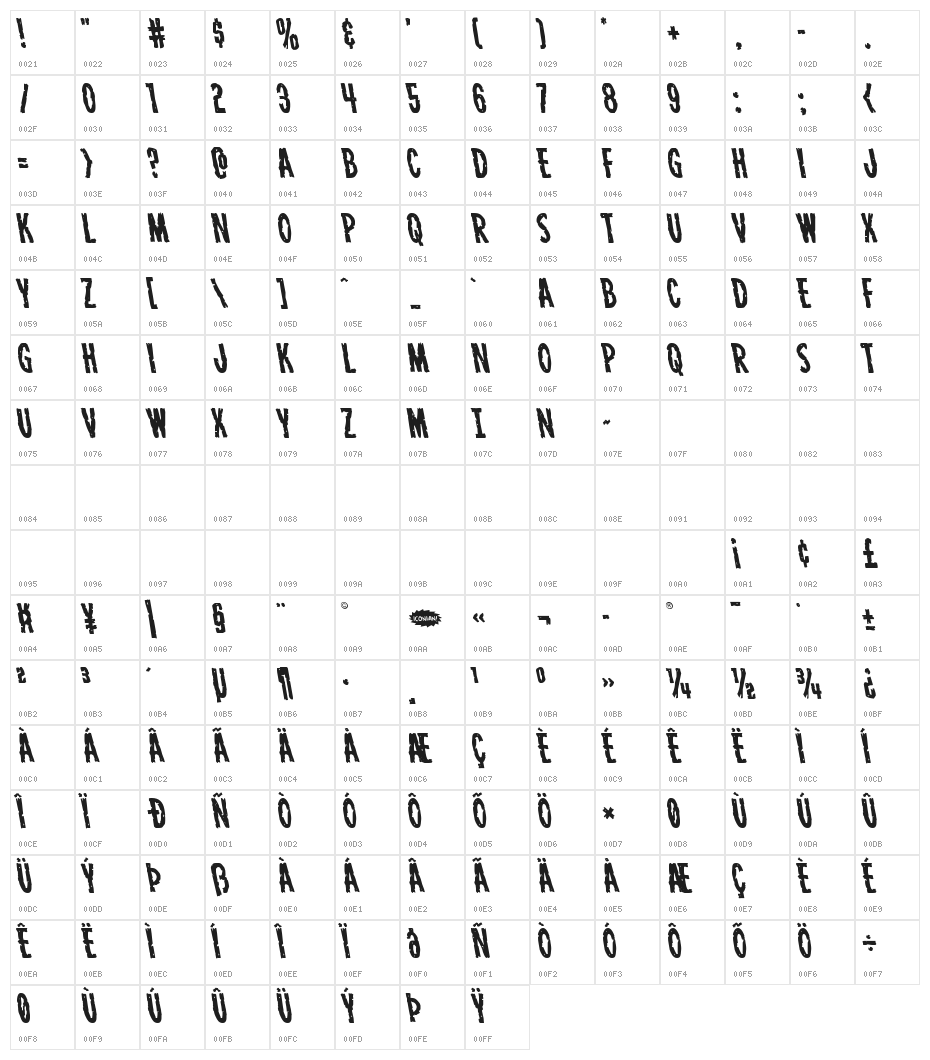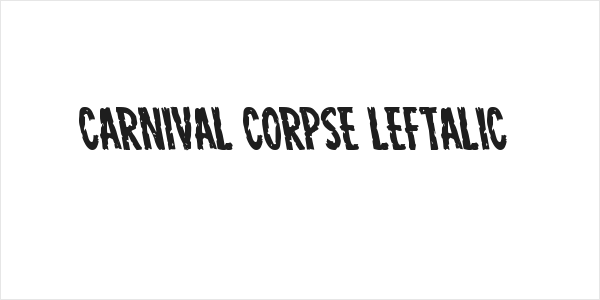
Carnival Corpse Leftalic Font
Carnival Corpse Leftalic Description
This font features a bold, distressed style with a left-leaning slant, giving it a unique and edgy appearance. The characters are heavily textured, resembling a grunge or eroded effect, which adds a sense of ruggedness and raw energy. The uppercase and lowercase letters maintain a consistent style, with jagged edges and irregular shapes that create a dynamic visual impact. The numbers and special characters follow the same aesthetic, ensuring a cohesive look across all elements. This font is ideal for projects that require a bold statement or a touch of rebellious flair.
| Proposed Projects | Ideal for music album covers, horror movie posters, edgy branding, or any project needing a bold, rebellious touch. |